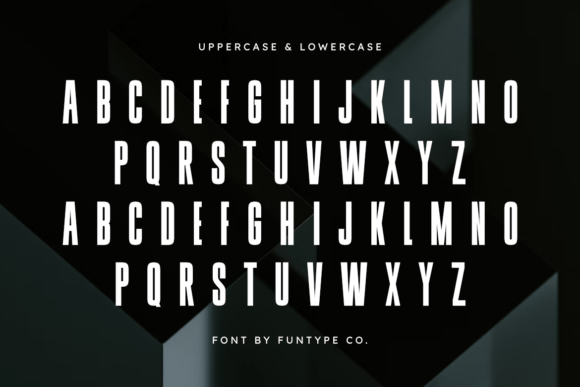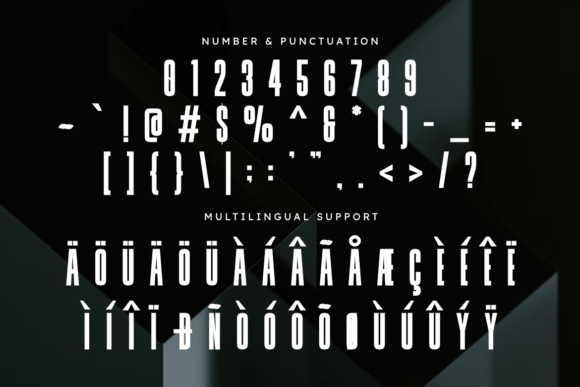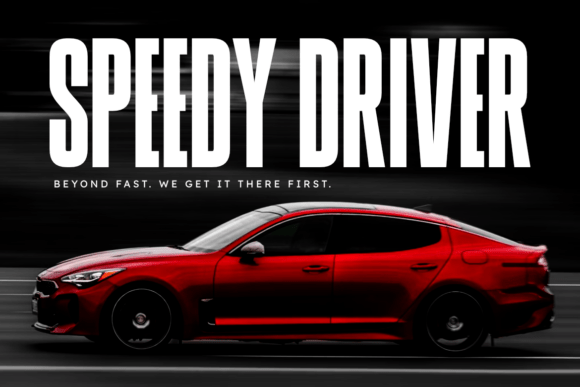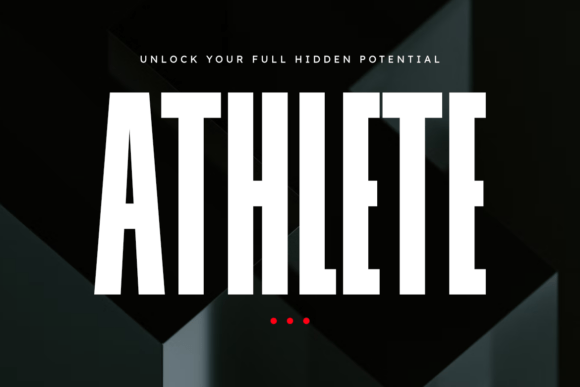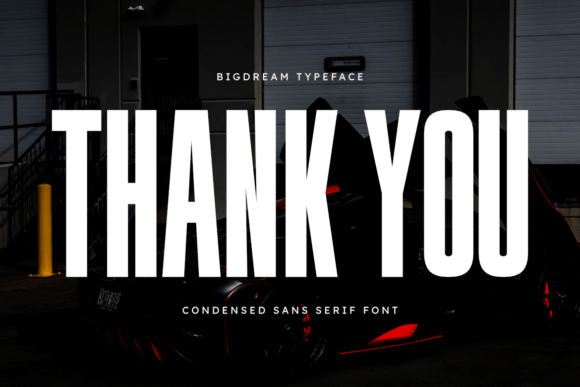
Introducing Bigdream Font: The Ultimate Display Typeface for Ambitious Designs
In the world of typography, fonts play a crucial role in conveying the tone and personality of a brand or design. For designers and crafters looking for a typeface that exudes ambition, strength, and premium quality, Bigdream Font is an exceptional choice. This powerful, elegant condensed sans serif display font is specifically designed to make a lasting impact, making it perfect for high-impact titles, automotive branding, luxury goods, fashion editorials, and modern poster design.
The Design Philosophy Behind Bigdream Font
Bigdream Font boasts a tall, streamlined form and clean lines, creating a visually striking presence that demands attention. Its condensed sans serif design ensures that the font remains highly legible, even in display sizes, making it an excellent choice for designers seeking a bold yet refined statement. The font’s sleek and modern aesthetic is perfect for those looking to convey a sense of sophistication and elegance in their designs.
Key Features of Bigdream Font
- Powerful and Elegant Design: Bigdream Font features a unique blend of power and elegance, making it suitable for a wide range of design applications.
- Condensed Sans Serif: The font’s condensed sans serif design ensures that it remains highly legible, even in display sizes.
- Tall and Streamlined Form: Bigdream Font’s tall, streamlined form creates a visually striking presence, perfect for high-impact titles and display text.
- Clean Lines: The font’s clean lines and modern aesthetic make it an excellent choice for designers seeking a sophisticated and elegant look.
- Highly Versatile: Bigdream Font is a highly versatile typeface that excels in any setting where a bold yet refined statement is required.
Use Cases for Bigdream Font
Bigdream Font is an incredibly versatile typeface that can be used in a wide range of design applications, including:
- High-Impact Titles: The font’s bold and elegant design makes it perfect for high-impact titles, such as movie posters, book covers, and magazine headlines.
- Automotive Branding: Bigdream Font’s powerful and sophisticated aesthetic makes it an excellent choice for automotive branding, including car logos, advertisements, and marketing materials.
- Luxury Goods: The font’s elegant and refined design makes it suitable for luxury goods, such as high-end fashion brands, jewelry, and watches.
- Fashion Editorials: Bigdream Font’s modern and sophisticated aesthetic makes it perfect for fashion editorials, including magazine spreads, runway show titles, and advertising campaigns.
- Modern Poster Design: The font’s bold and elegant design makes it an excellent choice for modern poster design, including event posters, concert posters, and advertising posters.
Why Choose Bigdream Font?
For designers and crafters looking for a serious, contemporary aesthetic with great readability in display sizes, Bigdream Font is an exceptional choice. Here are just a few reasons why:
- Unique and Memorable: Bigdream Font’s unique and memorable design ensures that your designs will stand out from the crowd.
- Highly Legible: The font’s clean lines and condensed sans serif design ensure that it remains highly legible, even in display sizes.
- Versatile: Bigdream Font is a highly versatile typeface that can be used in a wide range of design applications.
- Professional and Sophisticated: The font’s elegant and refined design makes it perfect for designers seeking a professional and sophisticated aesthetic.
In conclusion, Bigdream Font is a powerful, elegant condensed sans serif display font that is perfect for designers and crafters looking for a bold yet refined statement. Its unique blend of power and elegance, combined with its highly legible design, make it an exceptional choice for a wide range of design applications. Whether you’re looking to create high-impact titles, automotive branding, luxury goods, fashion editorials, or modern poster design, Bigdream Font is an excellent choice.